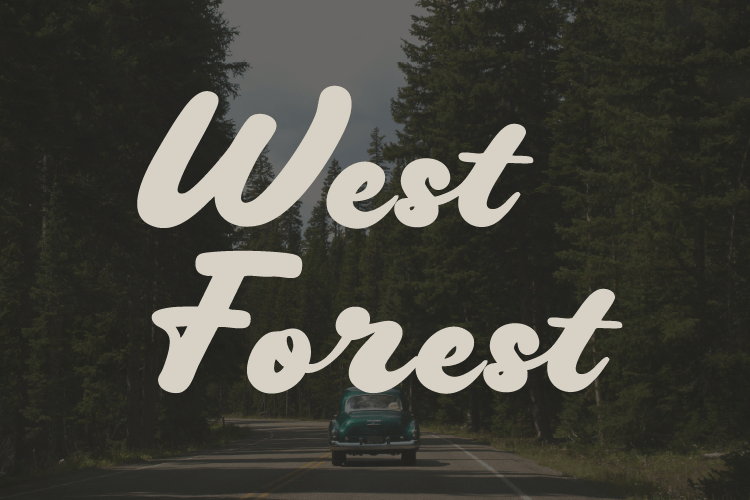
Sublimation Calligraphy Font
Sublimation Calligraphy Font is a delightful handwritten font, radiating warmth and personality. Its playful yet legible style lends itself well to various projects, from greeting cards to branding. With natural strokes and charming irregularities, this font captures the essence of handmade authenticity, infusing any design with character and charm.